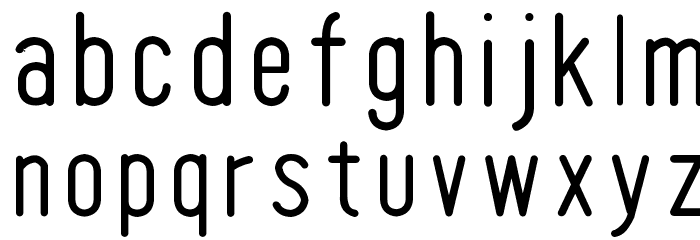
Tomato Round Condensed Thin Font
This font features a clean and modern aesthetic with a condensed structure, making it ideal for space-saving designs. The characters are rounded, giving a friendly and approachable feel. The thin strokes contribute to its elegant and sleek appearance, suitable for contemporary projects. Its uniform line weight and minimal contrast make it versatile for various applications, from digital interfaces to print media. The font maintains clarity and readability even at smaller sizes, which is enhanced by its tight character spacing.
A modern, condensed font with rounded characters and thin strokes.